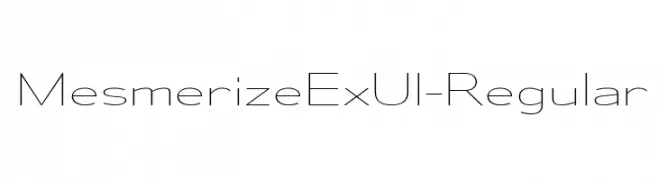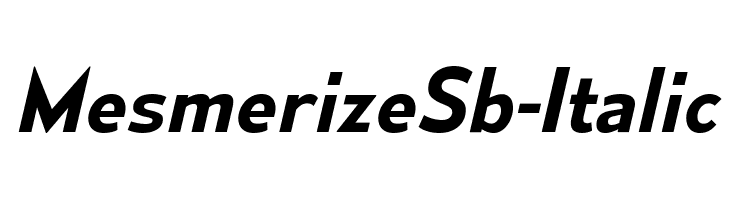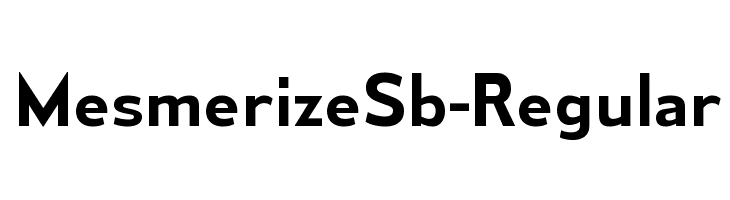
A sleek, modern italic font with a dynamic and professional appearance.
A modern, bold sans-serif font with a geometric style and excellent readability.
A sleek, modern italic font with clean lines and a minimalist design.
A modern, geometric font with clean lines and uniform strokes.
A sleek, modern italic font with clean lines and uniform stroke width.
A modern, geometric sans-serif font with clean lines and balanced proportions.
A bold, modern sans-serif font with clean, geometric lines.
A bold, italicized font with strong strokes and a dynamic, forward-leaning style.
A sleek, modern italic font with consistent stroke width and dynamic style.
A modern, geometric sans-serif font with balanced proportions and a professional appearance.